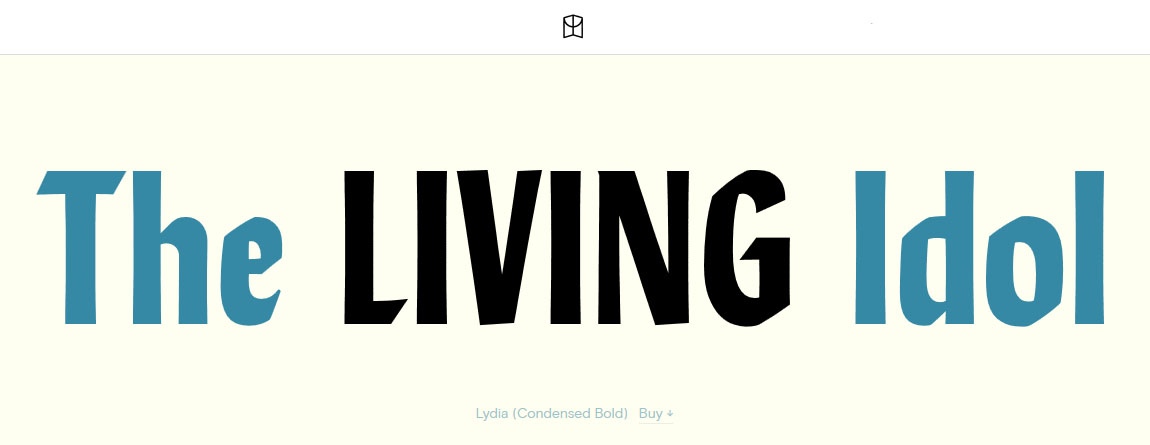
Lydia Condensed Font
Lydia Condensed Font is ideal for space-efficient editorial layouts, compact magazine headers, narrow column designs, vertical signage systems, streamlined packaging solutions, condensed poster campaigns, efficient web interfaces, tight-space branding, compressed advertising formats, and maximized content applications.
What makes Lydia Condensed Font so exciting is its masterful optimization of vertical space and elegant compression that delivers maximum typographic impact within minimal horizontal constraints through sophisticated design engineering and space-conscious typography. This intelligently compressed typeface features vertically elongated letterforms with refined proportions and space-maximizing character relationships that immediately convey efficiency, elegance, and the powerful advantage of optimized spatial design. The font's condensed construction and space-efficient aesthetic create an instant sense of design intelligence and layout optimization, making it ideal for projects that need to communicate maximum information density, spatial efficiency, and the transformative power of compressed typography to audiences seeking effective space utilization and meaningful content maximization.
The Lydia Condensed Font family typically includes multiple compressed weights and space-efficient styles, often featuring light through bold variations along with corresponding italic versions and ultra-condensed alternatives. Space-optimized font families frequently offer extensive character sets including advanced OpenType features, compressed symbols, and comprehensive language support that ensure optimal typography across diverse space-constrained communication requirements and efficient layout applications.
The condensed nature of Lydia Condensed Font makes it particularly effective for applications where spatial constraints and information density are essential for successful communication and layout efficiency. Publication designers and space planners will find this font especially valuable for materials that must establish maximum content impact while maintaining readability within severely limited horizontal space requirements.
What sets Lydia Condensed Font apart is its ability to maintain typographic elegance while maximizing spatial efficiency across diverse compressed applications. This balanced characteristic makes it suitable for both extreme space-constraint contexts and moderate compression applications where projecting design sophistication and maintaining optimal space usage must coexist harmoniously.
Professional designers recognize that Lydia Condensed Font brings invaluable spatial efficiency to projects across industries including publishing, signage design, packaging optimization, and space-constrained communications. Its condensed character and space-efficient appeal make it essential for organizations seeking typographic solutions that will provide maximum content impact and optimal space utilization across all contemporary space-limited communication challenges.
The systematically compressed design of Lydia Condensed Font ensures optimal spatial performance across all space-efficient communication applications while maintaining the readability essential for effective compressed typography.